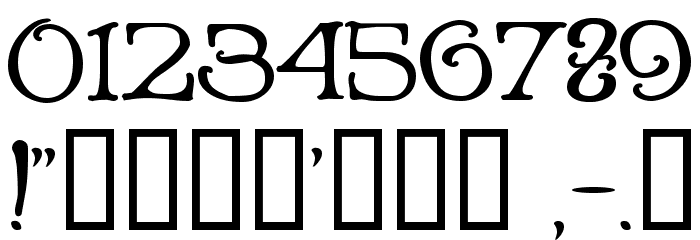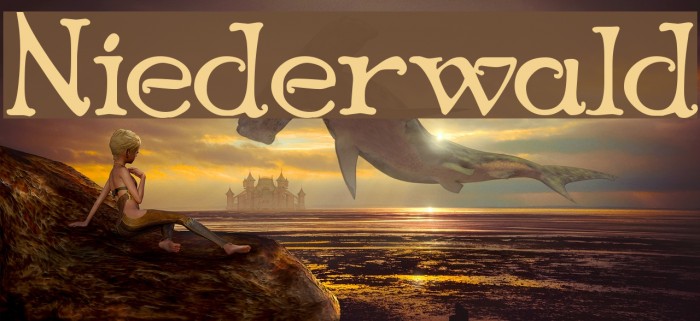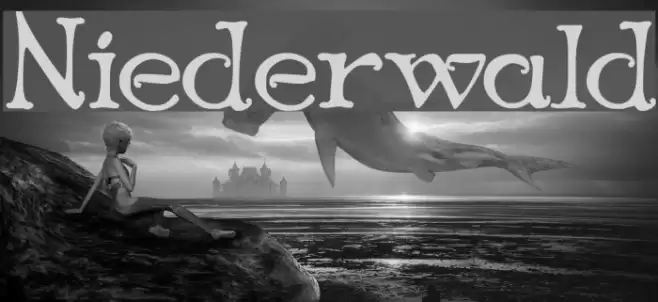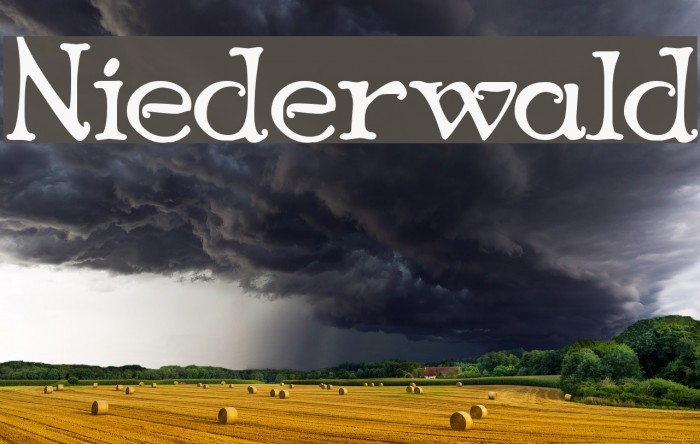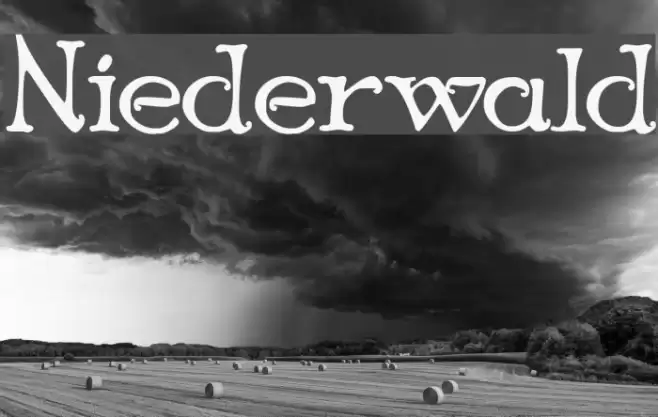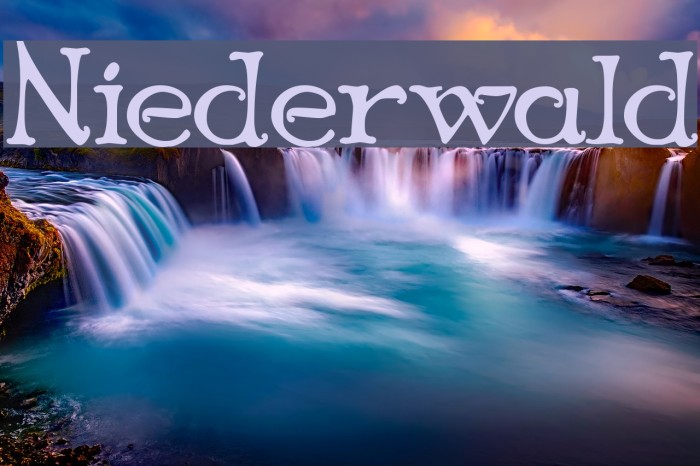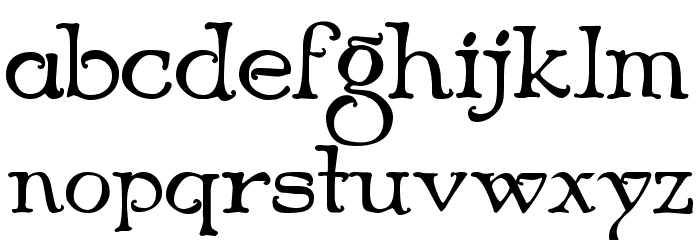
Niederwald Font
Niederwald Description
This font features a unique blend of classic and decorative elements, characterized by its ornate and slightly whimsical design. The uppercase letters exhibit a strong presence with their bold strokes and intricate serifs, while the lowercase letters maintain a playful yet elegant flow. The numerals are distinct and consistent with the overall style, offering a harmonious balance between readability and artistic flair. Special characters are crafted with attention to detail, enhancing the font's decorative appeal. This typeface is ideal for projects that require a touch of sophistication and creativity.
| Use Case | Headlines, Logos, Artistic projects |
| Proposed Projects | Ideal for invitations, branding, and artistic posters. |